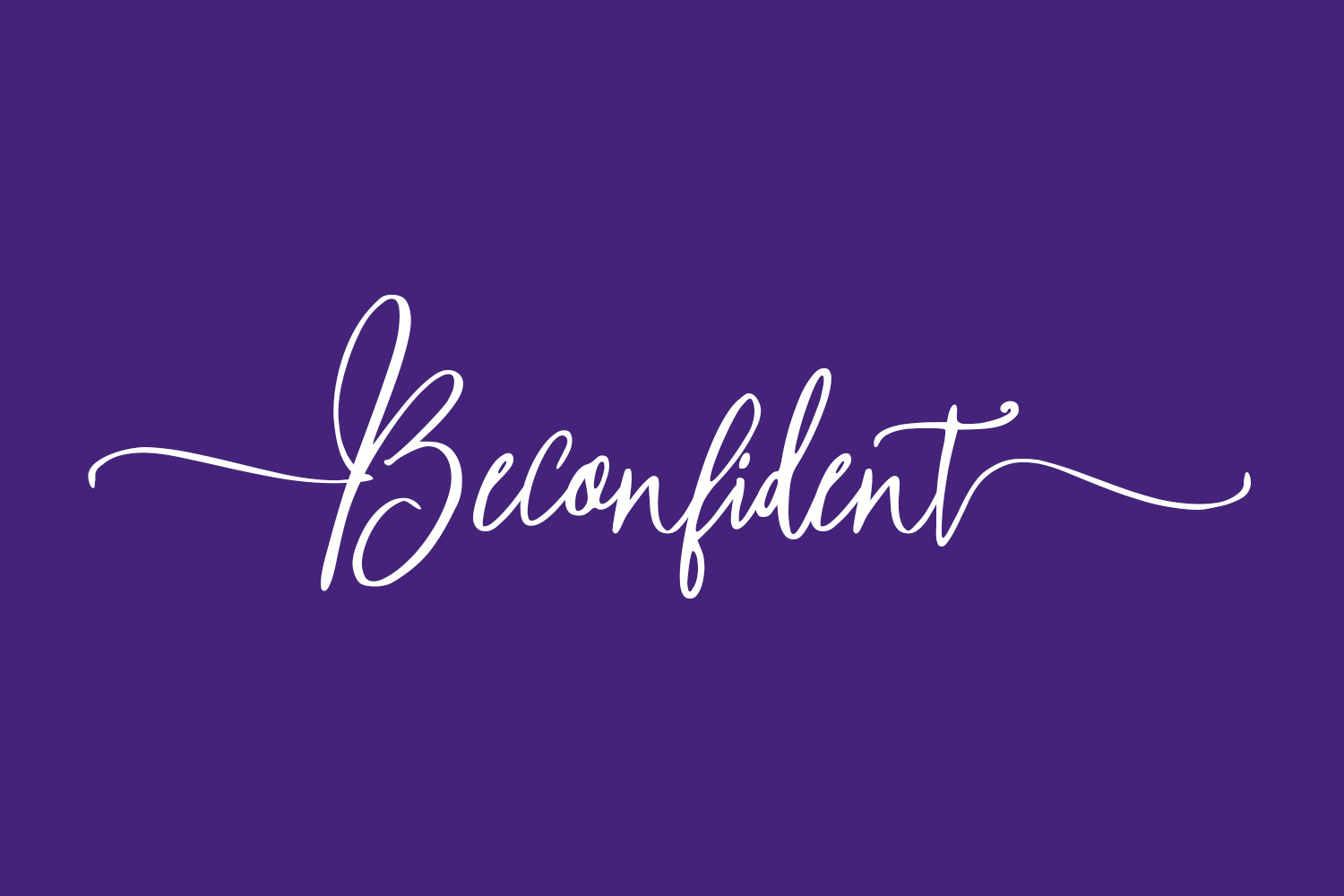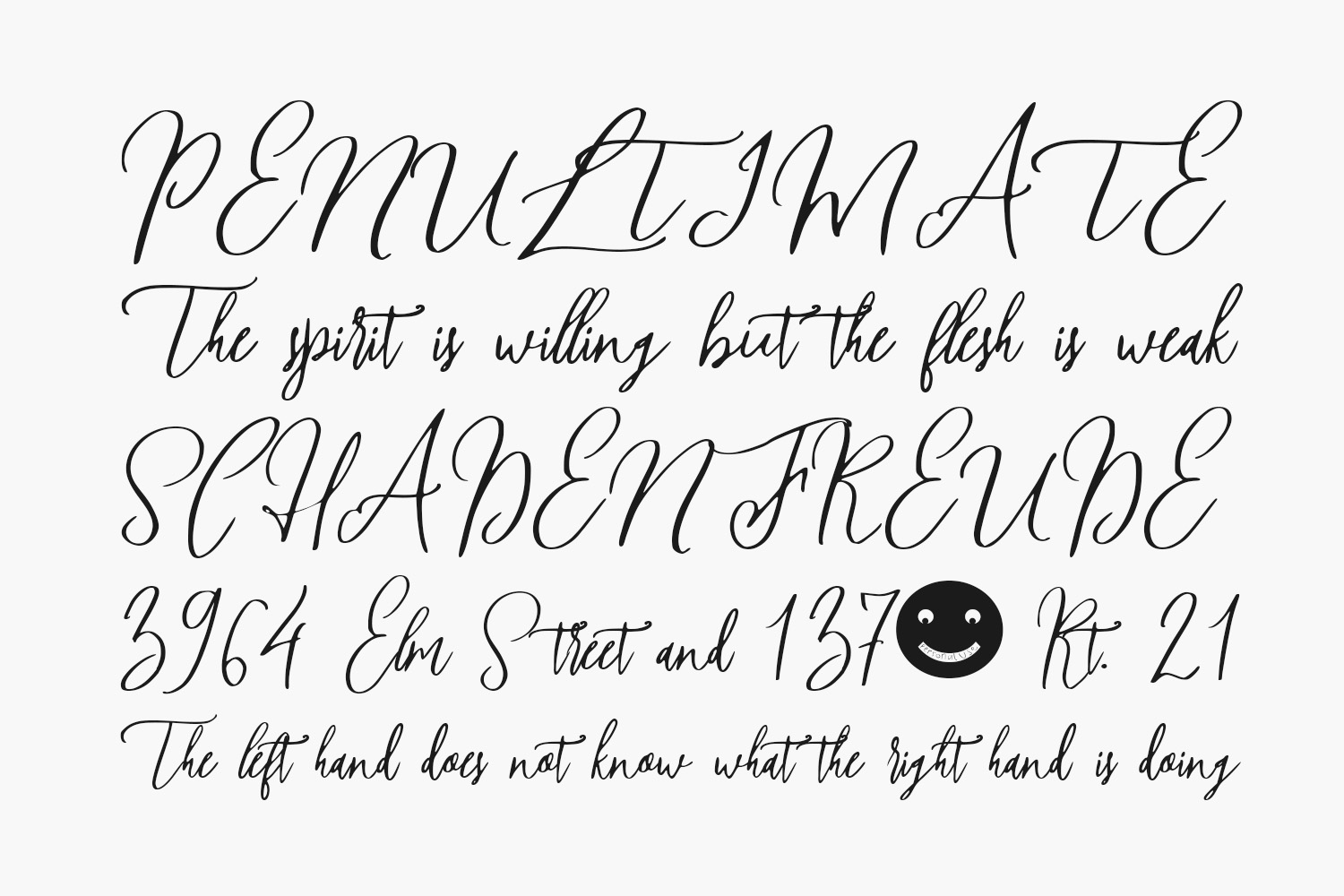
Beconfident Free Font is a lovely script font featuring charming, playful characters that seem to dance along the baseline. This font is PUA encoded which means you can access all glyphs and swashes with ease. Beconfident Free Font was designed by Bonjour Type is a demo and free for personal use only. Please purchase the full version for commercial use.